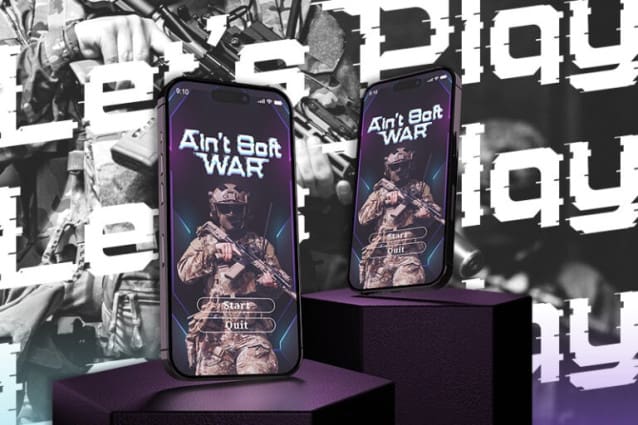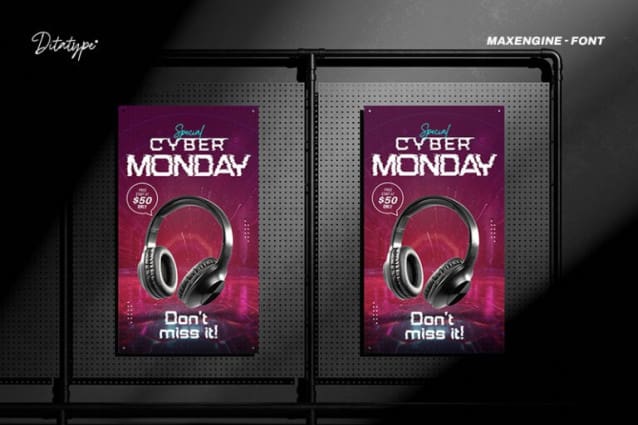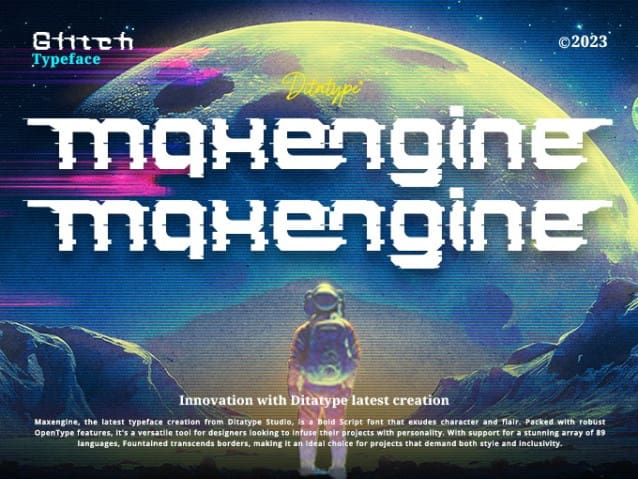
Maxengine Display Font
Maxengine Display Font is a bold script font that refuses to conform. This rebellious yet playful typeface marries boldness with a touch of whimsy, creating a dynamic and unique script that captures attention and refuses to be confined by traditional design norms.
The characters in Maxengine Display boast a rounded shape, bringing a sense of friendliness and approachability to the bold script. What truly sets it apart is the intentionally uneven outline details, adding an element of creative flair to each letter. This unconventional approach results in a font that exudes personality and breaks away from the ordinary.